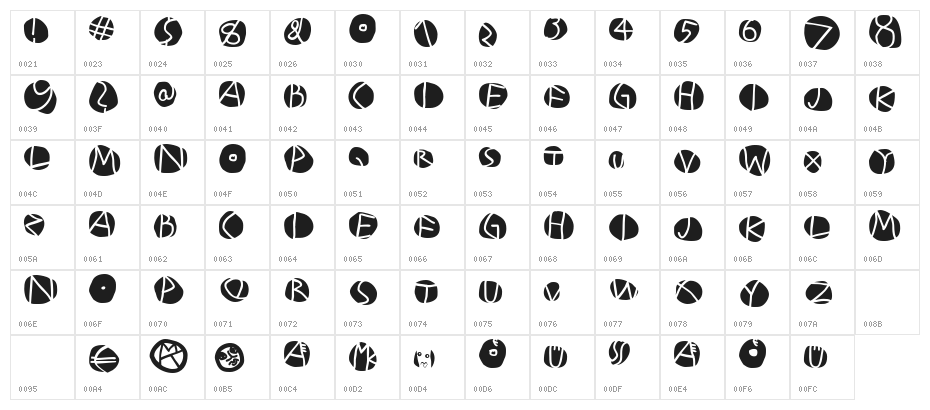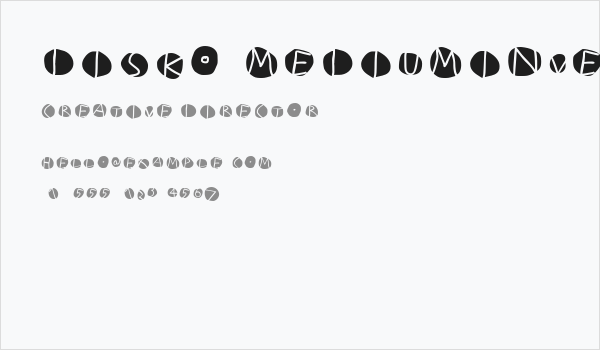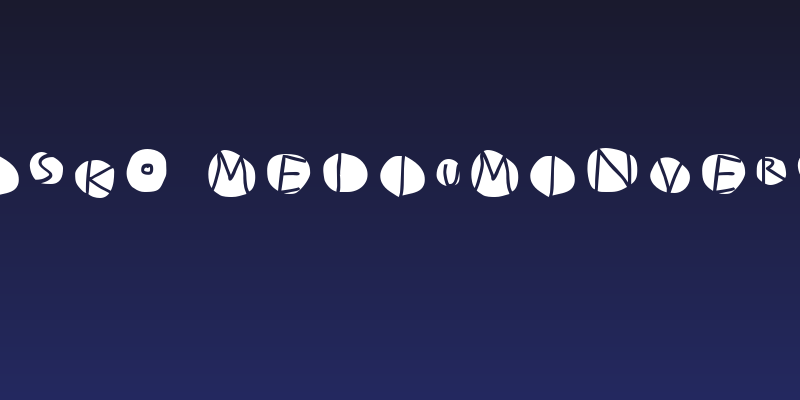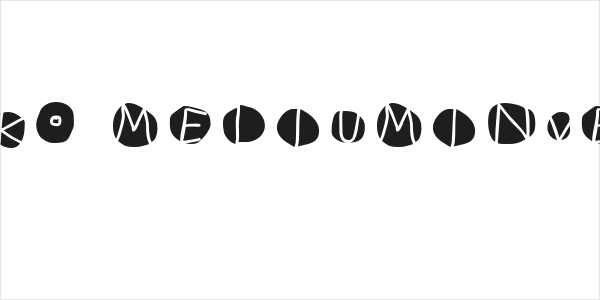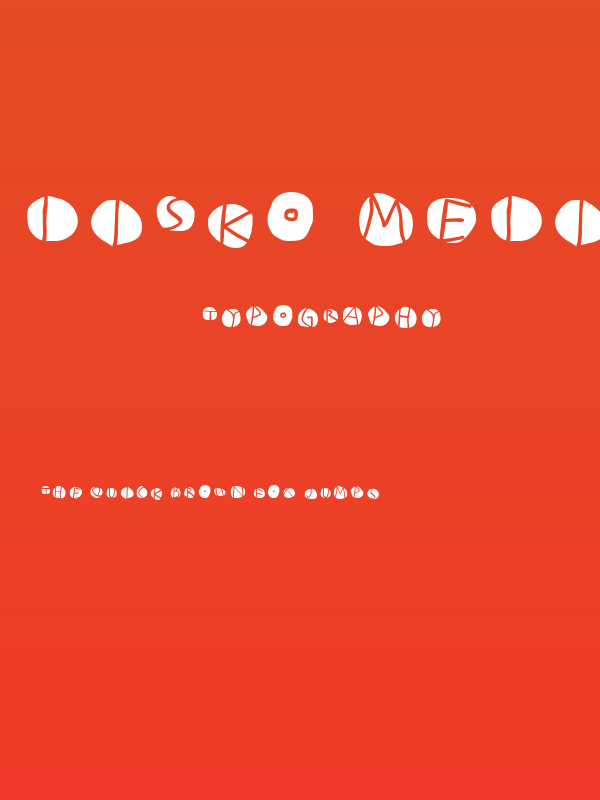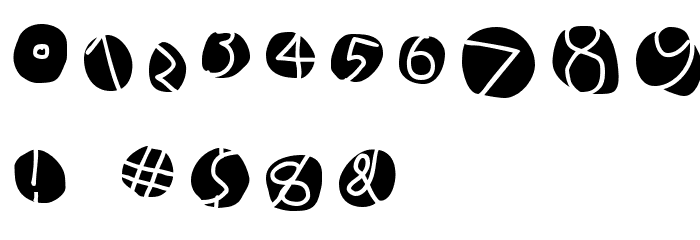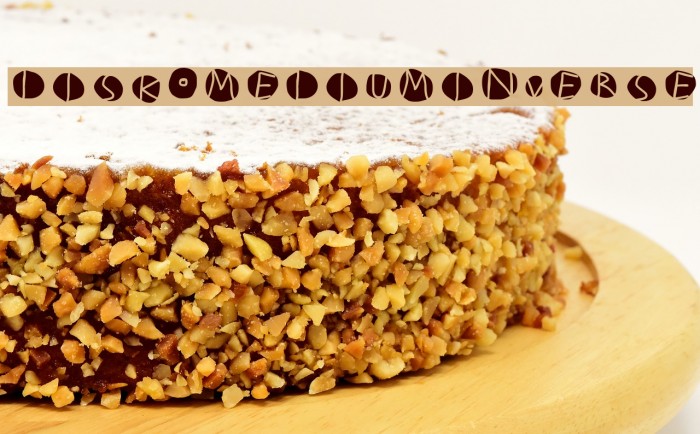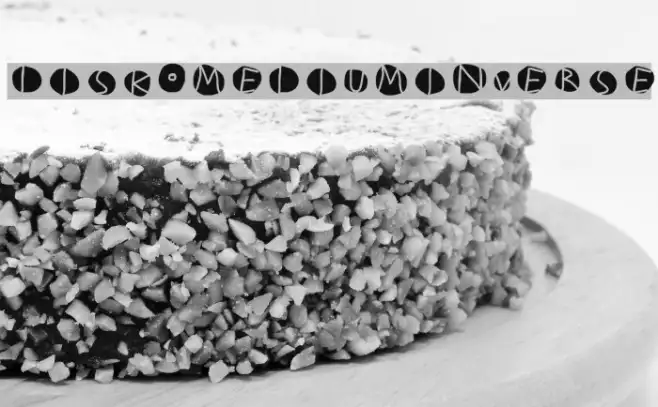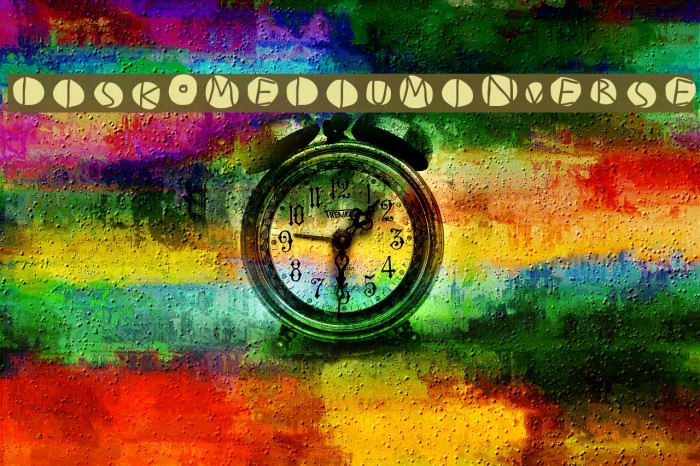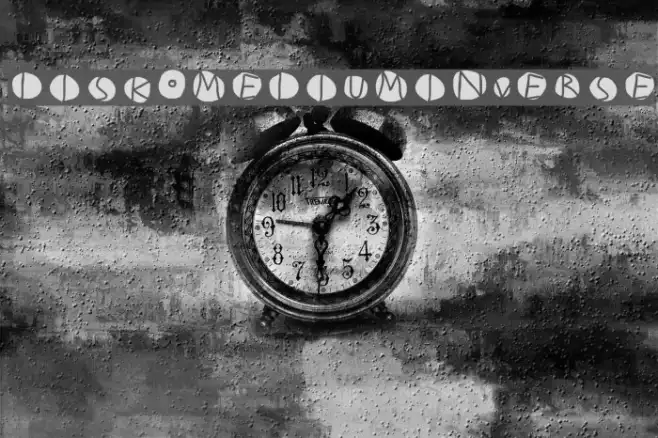
DiskO-MediumInverse Font
DiskO-MediumInverse Description
This font features a unique and playful design, where each character is enclosed within a circular shape, creating a bold and eye-catching appearance. The letters are crafted with a modern, artistic flair, incorporating sharp angles and curves that give each character a distinct personality. The use of negative space within the circles adds an intriguing visual contrast, making the font stand out. Its unconventional style makes it suitable for creative and contemporary projects, where a sense of fun and innovation is desired. The font's design is consistent across uppercase, lowercase, numbers, and special characters, ensuring a cohesive look.
| Proposed Projects | Ideal for branding, posters, album covers, and any project seeking a bold, creative touch. |